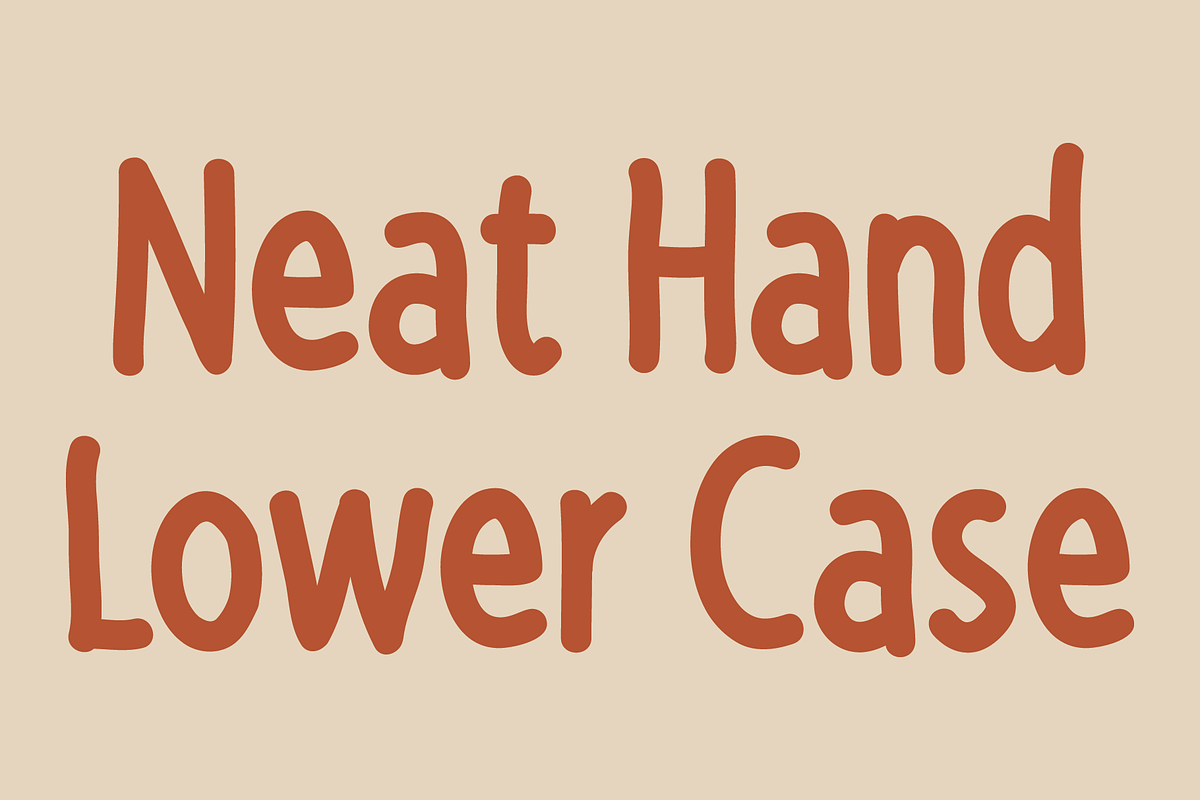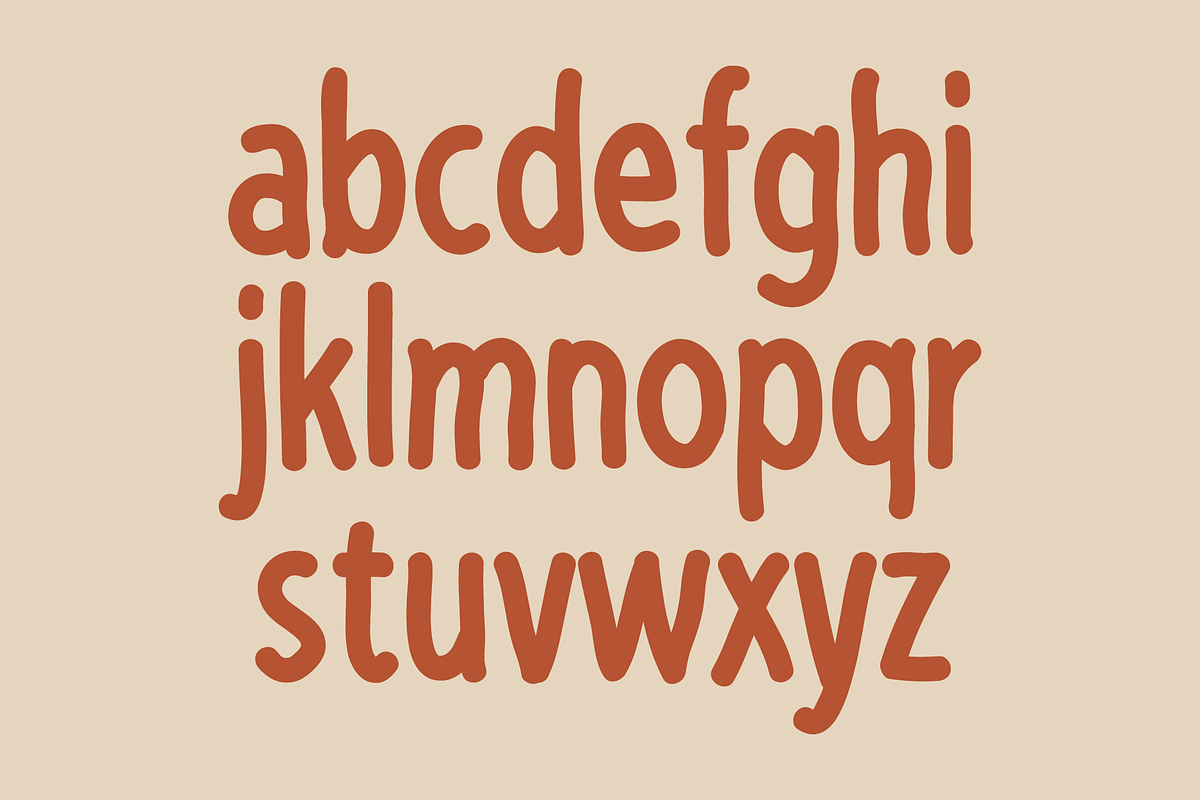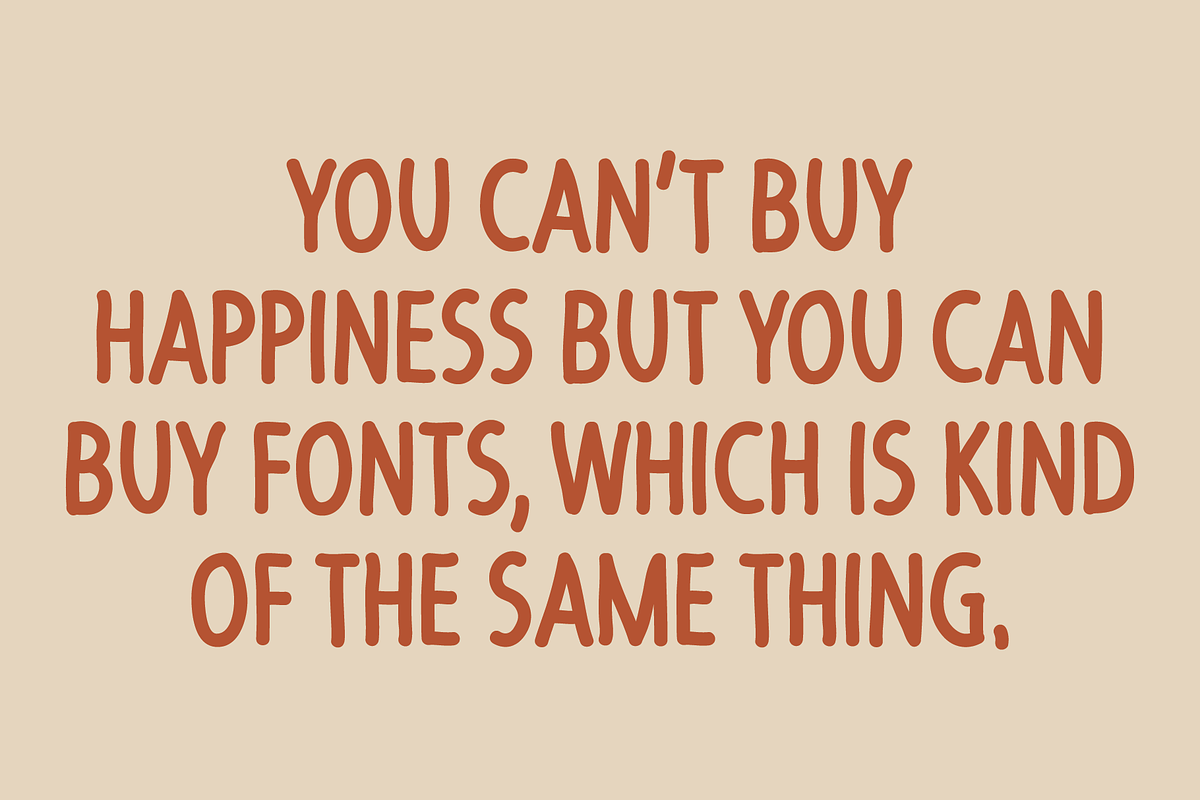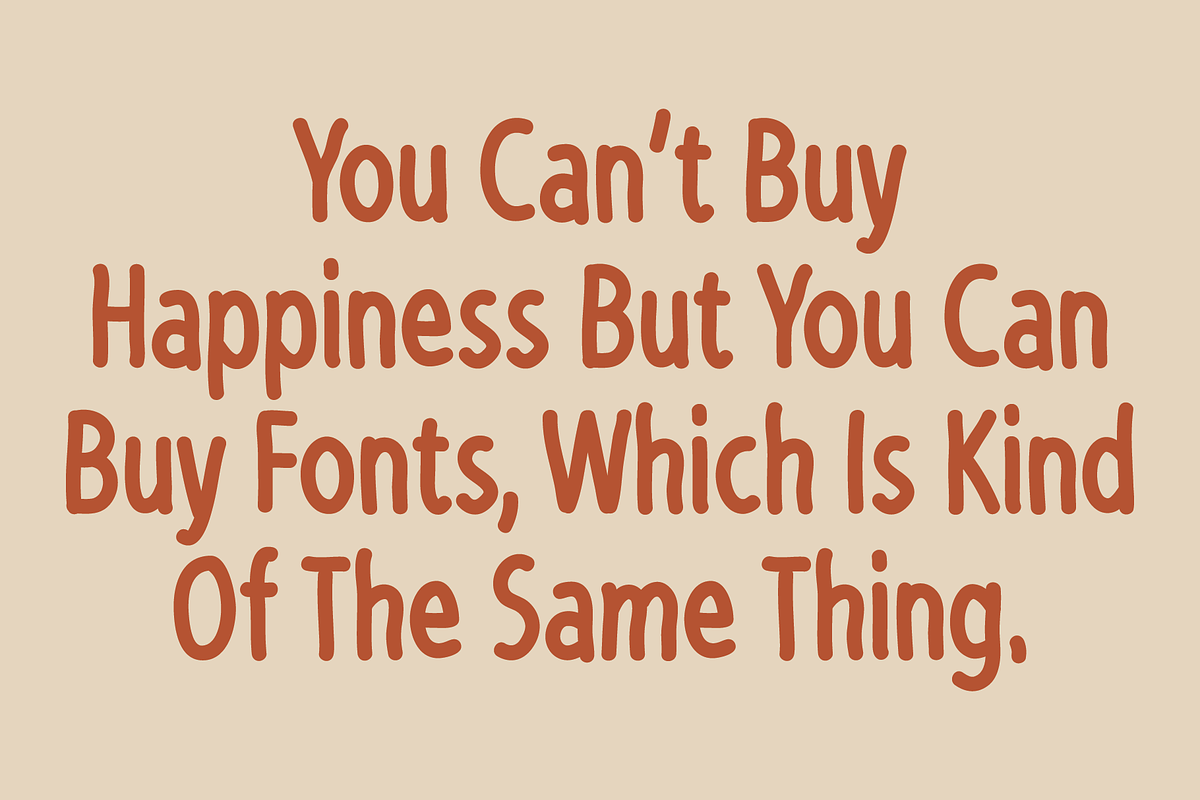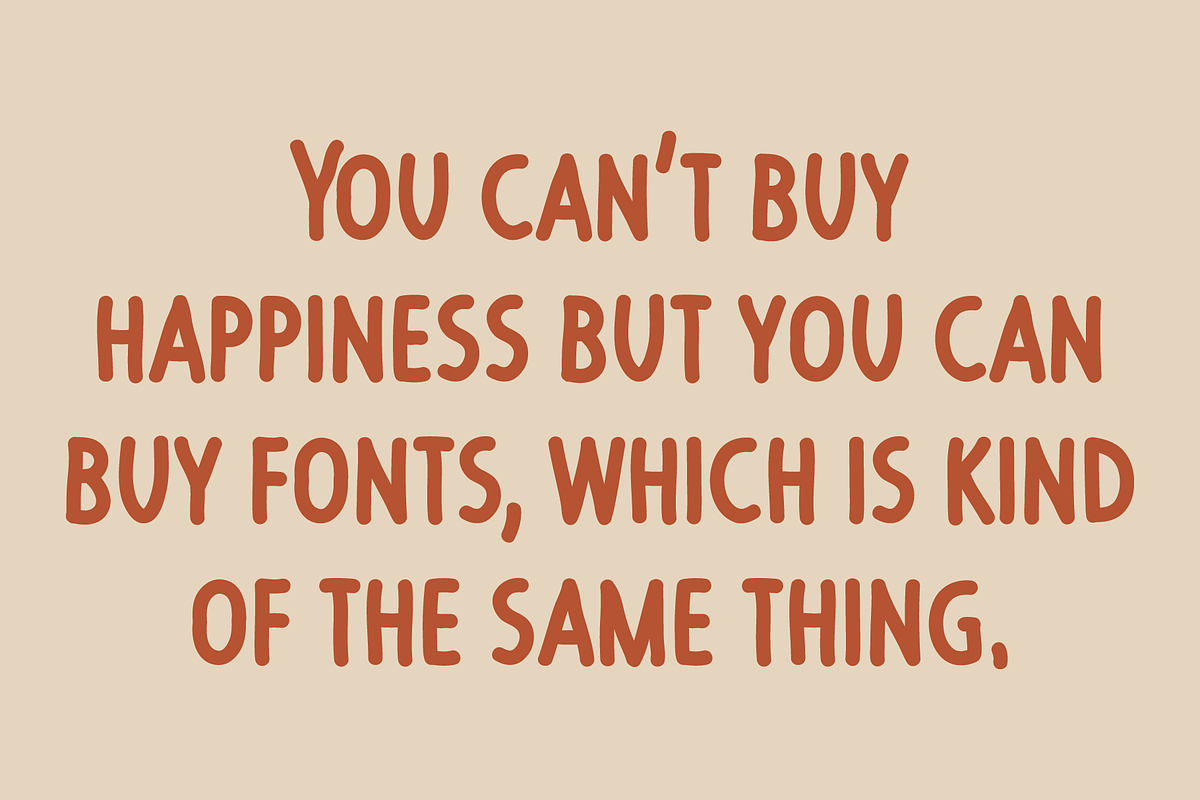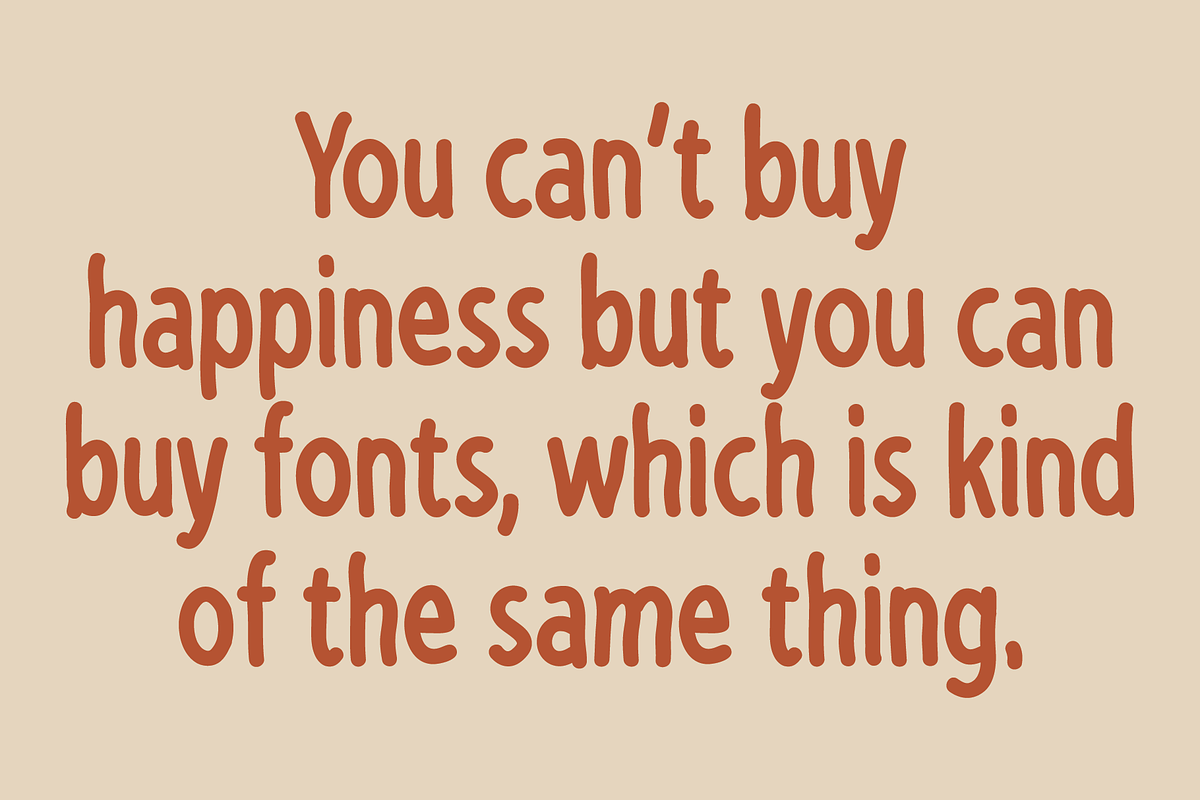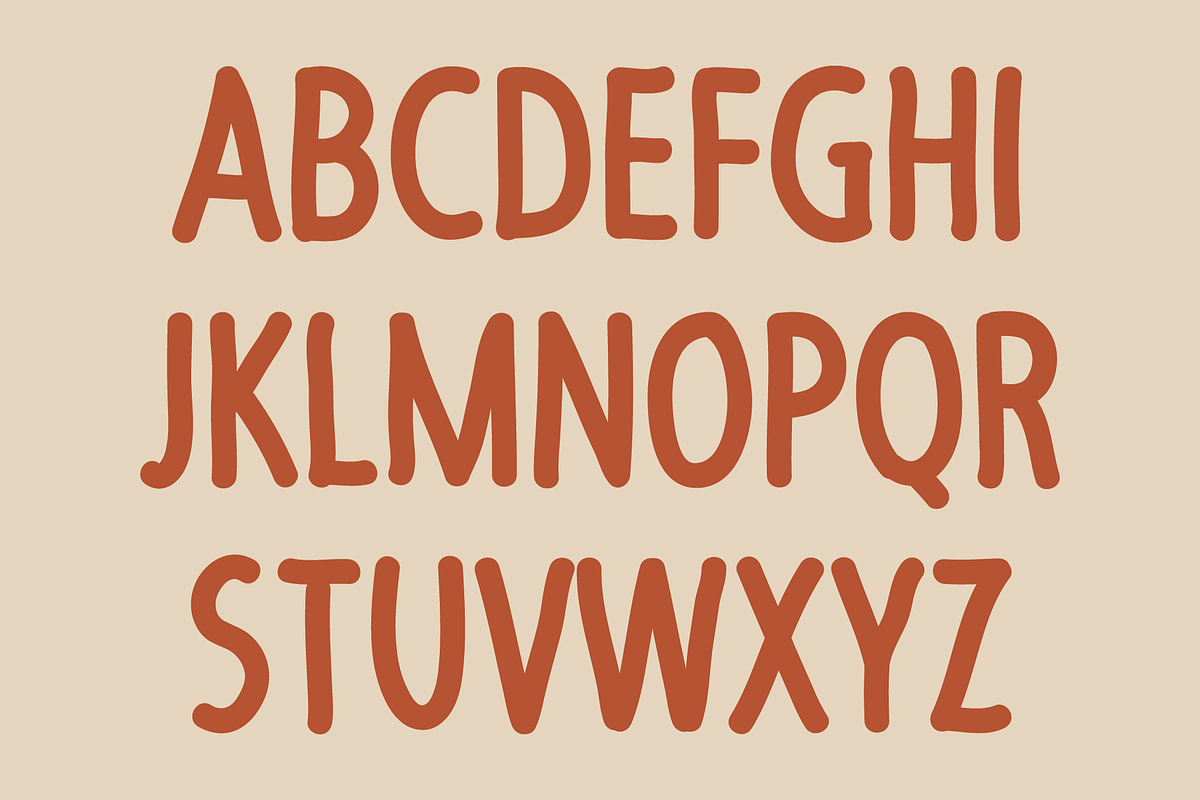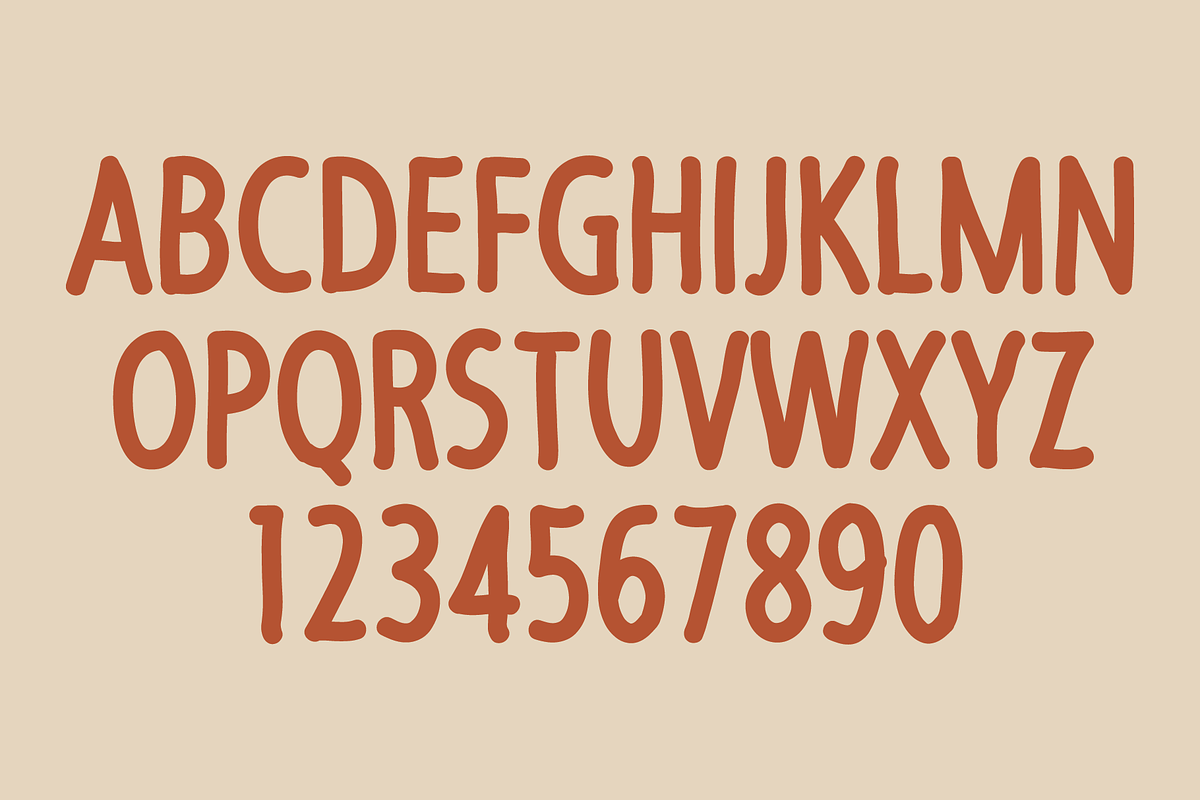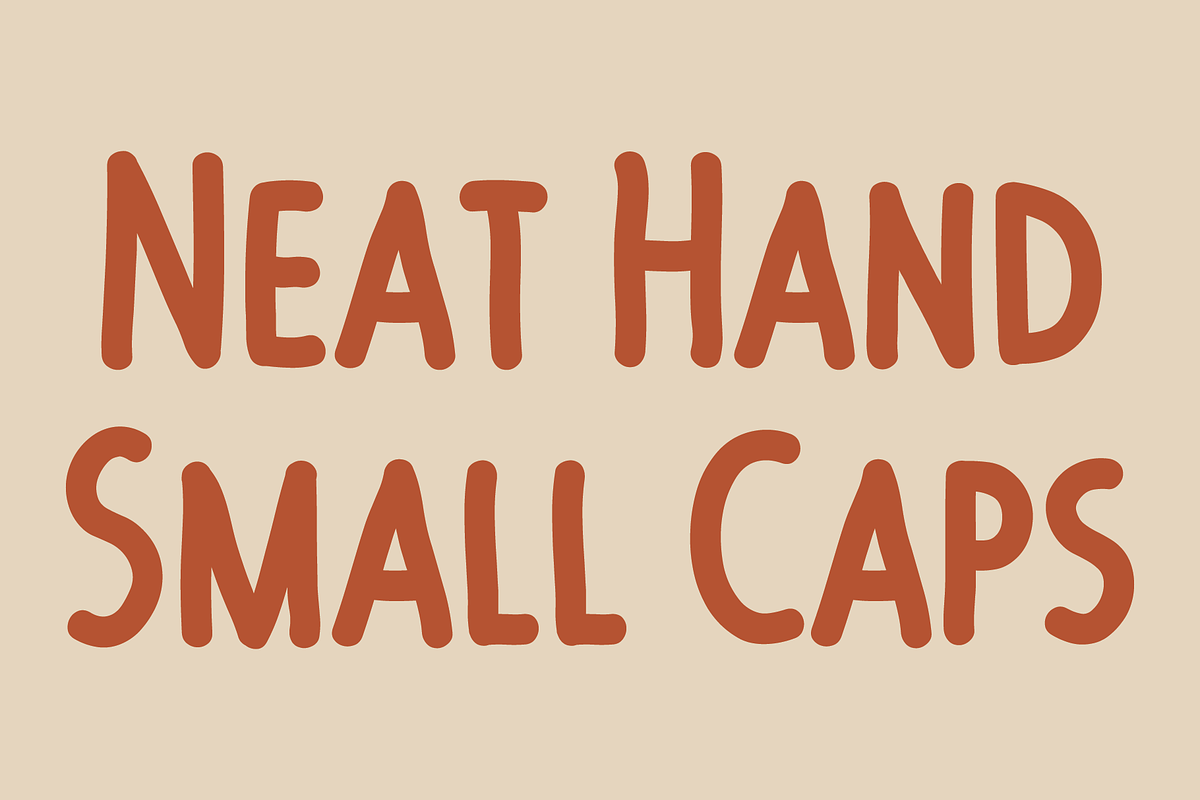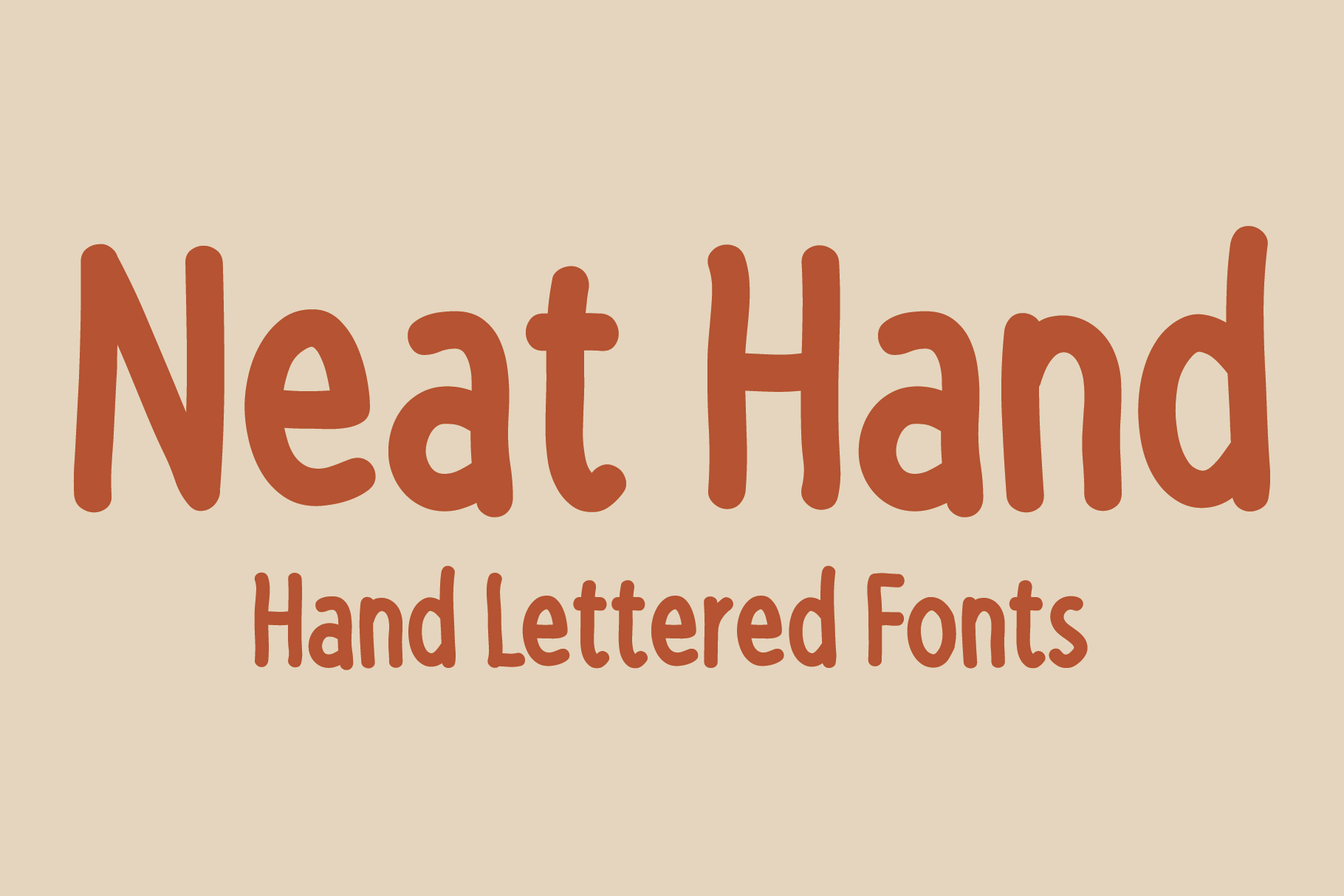
Neat Hand - Hand Lettered Fonts
Neat Hand is a neat hand-lettered sans serif font set. As their names imply Neat Hand Lower Case has a lowercase alphabet while Neat Hand Small Caps has small caps in place of the lowercase alphabet. Both fonts have the same uppercase alphabet, numbers, punctuation, symbols, and miscellaneous characters. The Neat Hand fonts are ideal for use where a neat but casual feel is desirable.